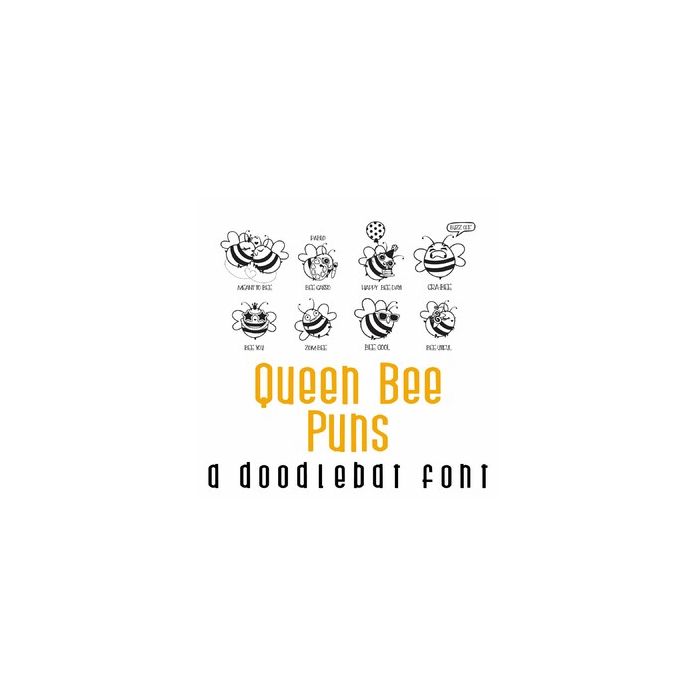
Queen Bee Puns Doodlebat Font
This fun doodlebat font features adorable bee puns. Perfect for Mother's Day, cards, crafts, gifts, planner stickers, scrapbook pages and more!